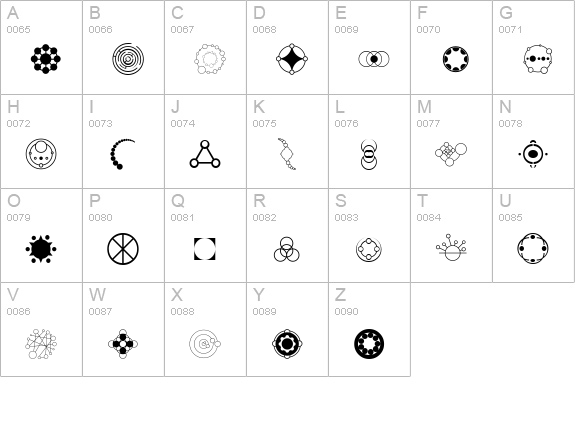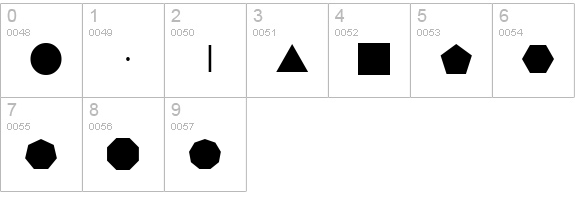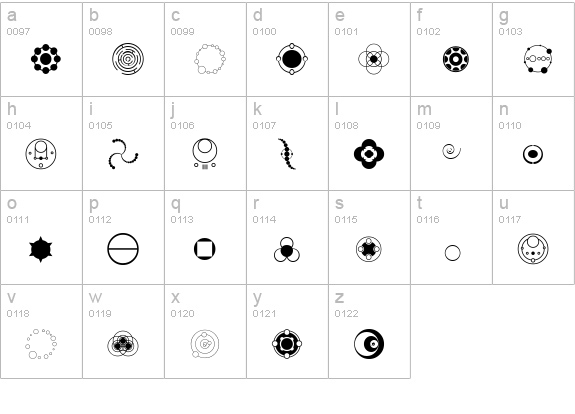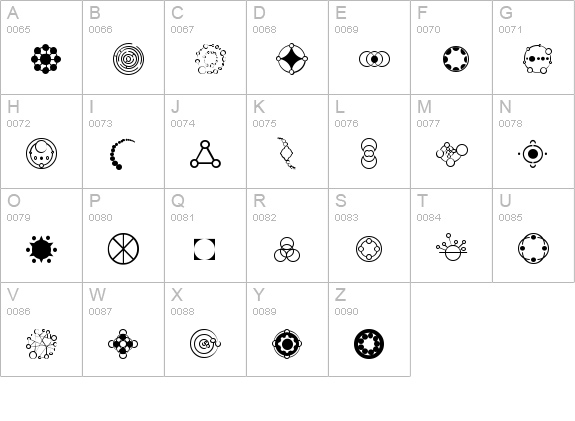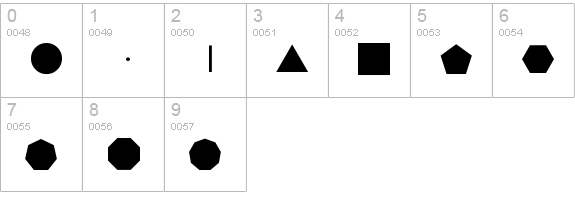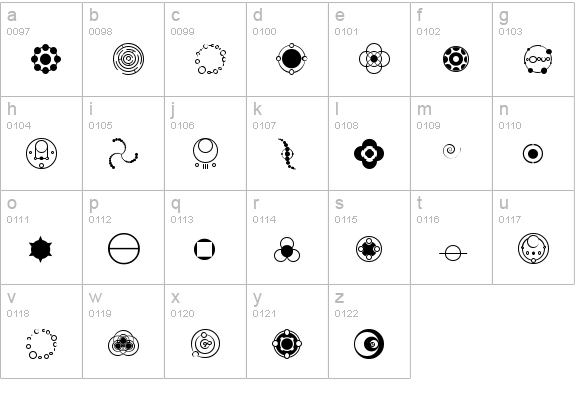
Crop Circle Dingbats font is a whimsical and playful typeface that features a collection of unique crop circle-inspired symbols and icons. This font is perfect for adding a touch of mystery and intrigue to your design projects, whether you're creating posters, flyers, or social media graphics. With its intricate patterns and intricate details, Crop Circle Dingbats font is sure to catch the eye and spark curiosity. Best of all, Crop Circle Dingbats font is available for free download at FontsMarket.com. That's right, you can add this fun and creative font to your collection without spending a penny. So why wait? Download Crop Circle Dingbats font today and start incorporating these captivating symbols into your designs!